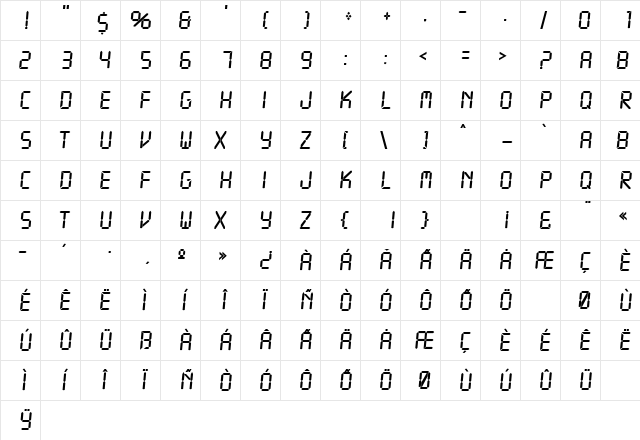
LANGDON Regular
Design Context for LANGDON Typeface
LANGDON is a composed and adaptable typeface that performs quietly and consistently across a wide range of design contexts.